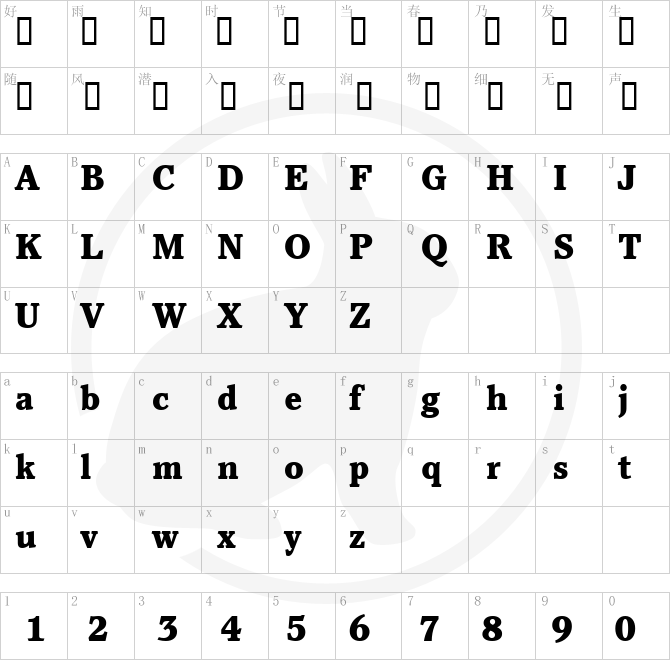
- Font Name:PacellaMdITCTT
- Subfamily:Gras
- Subfamily:PacellaMdITCTT Black
- Full Name:PacellaMdITCTT Gras
- PostScript:PacellaMdITCTTBlack
PacellaMdITCTT-Black.ttf is a very beautiful artistic font, PacellaMdITCTT-Black.ttf is widely used in the design and printing of various books and pictures,PacellaMdITCTT-Black.ttf has a strong visual impact,PacellaMdITCTT-Black.ttf is a commonly used font in newspapers, magazines and books, and is used in posters, e-commerce Poster design, store design, logo design, font design and other fields.PacellaMdITCTT-Black.